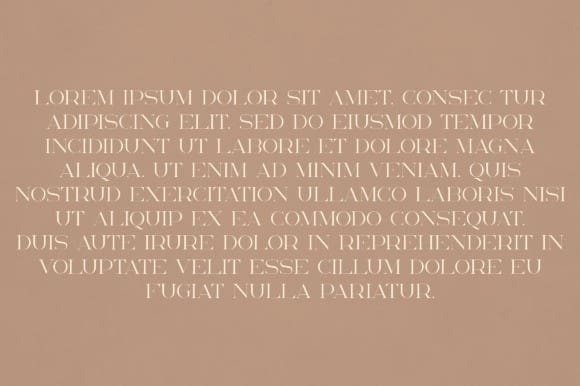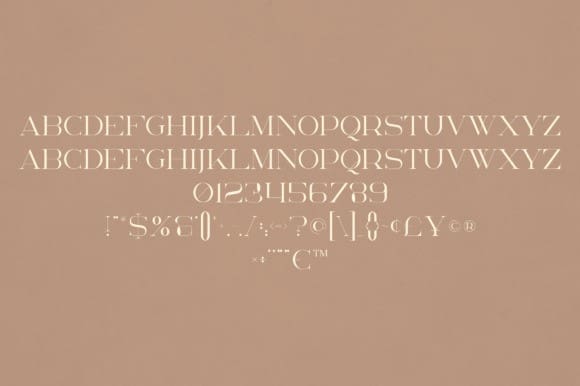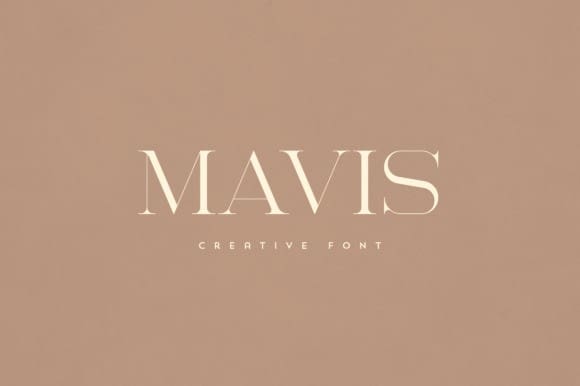
Mavis Font
Mavis Font is an elegant and versatile serif font that will make your typography truly unique! It will enchant every logo, branding, headline, or plain text!